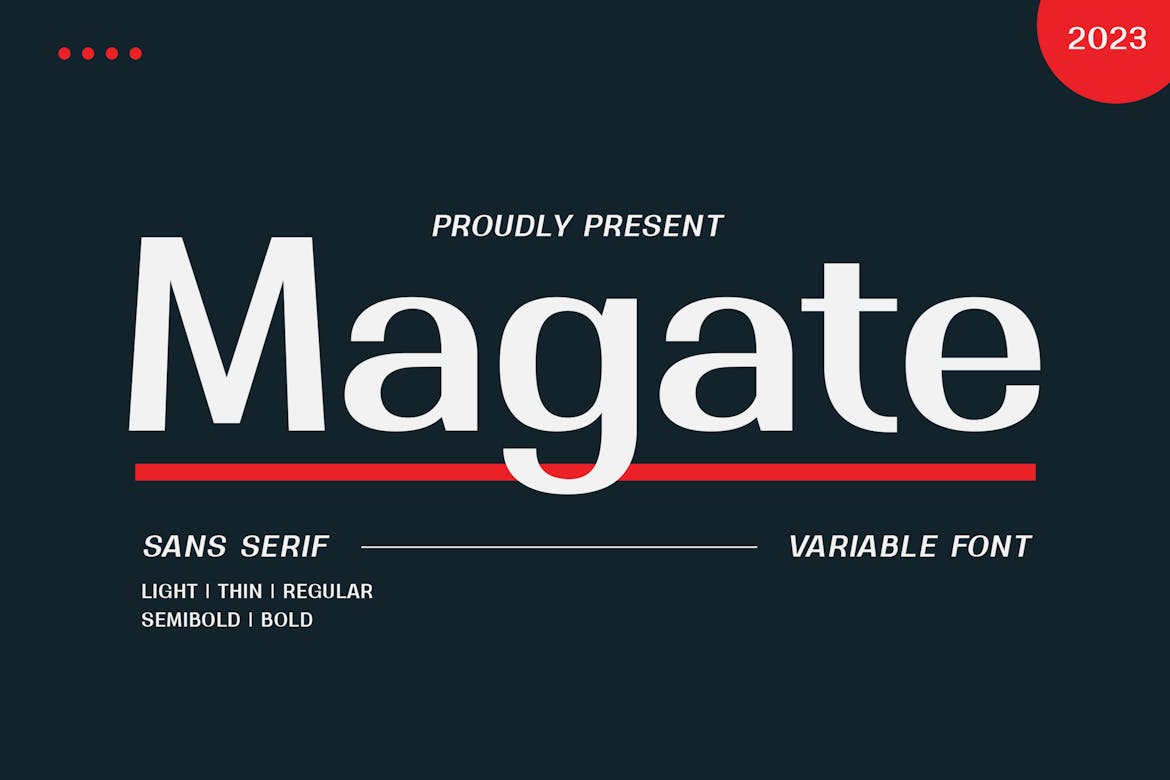
Magate - Sans Serif Variable Font
Magate Font Free Download is perfect for a variety of design applications, including branding, website headers, posters, and social media graphics. Its clean, modern aesthetic makes it ideal for creating professional logos, sleek marketing materials, and eye-catching digital content that stands out across platforms.
Why is Magate so exciting? This sans serif variable font offers unparalleled flexibility with its adjustable weights and styles, allowing designers to fine-tune typography to match any creative vision. Its minimalist yet bold appearance ensures readability and impact, making it a go-to choice for modern design projects.
The Magate font family includes a range of weights from light to bold, along with italic variations, offering versatility for diverse design needs. Whether you're crafting a subtle headline or a striking billboard, this family has you covered.
Boost your design game with Magate Font Free Download, a font that blends functionality with style. Its variable nature means you can experiment with different weights seamlessly, saving time while maintaining consistency across your projects. Designers love Magate for its adaptability, making it suitable for both print and digital media. From crafting elegant business cards to designing user-friendly website interfaces, this font ensures your work looks polished and professional.
Incorporating Magate Font Free Download into your toolkit opens up endless creative possibilities. Its smooth lines and contemporary feel make it a favorite among graphic designers and marketers aiming to capture attention. Whether you're refreshing a brand identity or launching a new campaign, Magate delivers a sophisticated touch that resonates with audiences. Download it today to explore its potential, but remember to secure a commercial license for professional use. With Magate, your typography will not only look good but also perform exceptionally in today’s competitive design landscape.